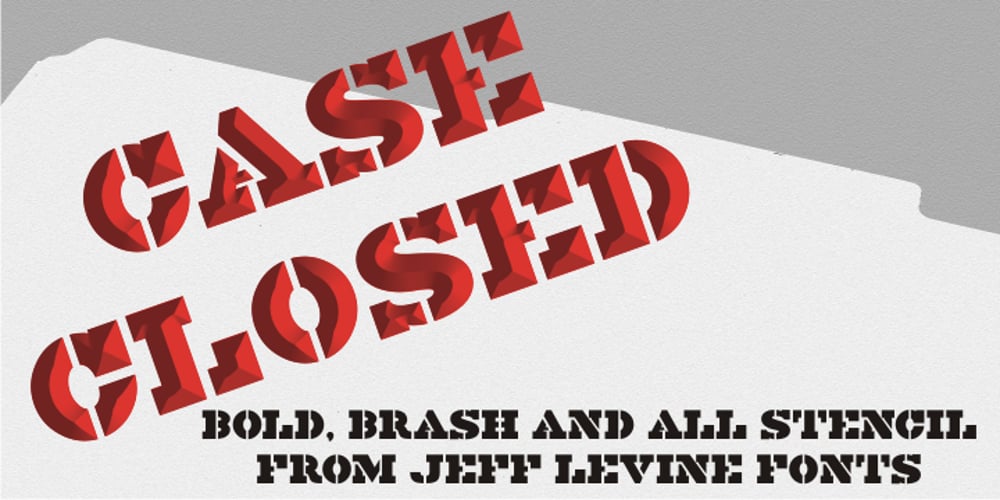
Case Closed JNL Font Family was designed by Jeff Levine and published by Jeff Levine. Case Closed JNL contains 1 styles and family package options. Case Closed JNL is a bold, slab serif stencil font inspired by a set of brass stencils spotted for sale in an internet auction.